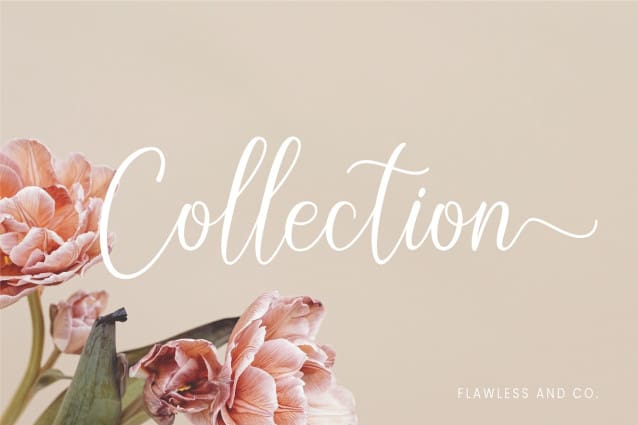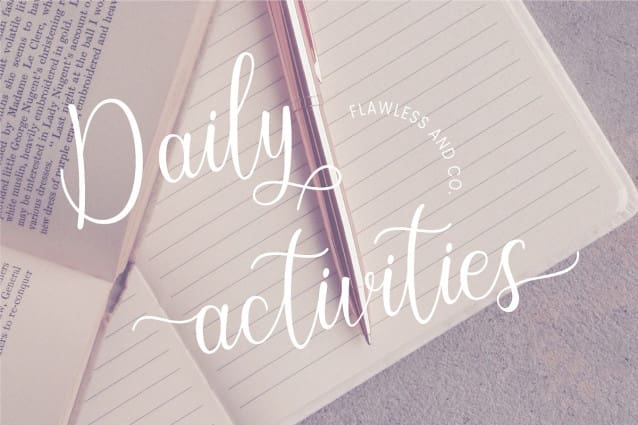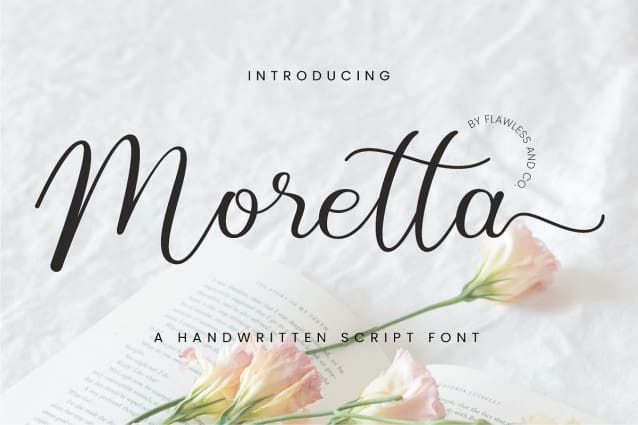
Moretta Script Font
Moretta Script Font is a handwritten script, this style gives a feel of girly and modern. Suitable for any graphic designs such as branding materials, t-shirt, print, business cards, logo, poster, t-shirt, photography, quotes .etc